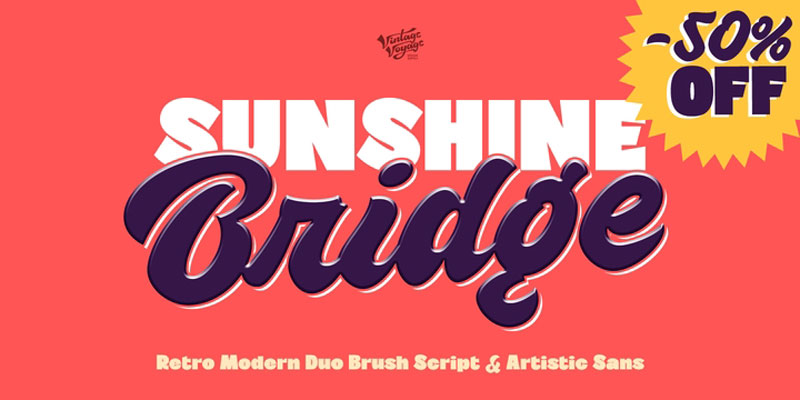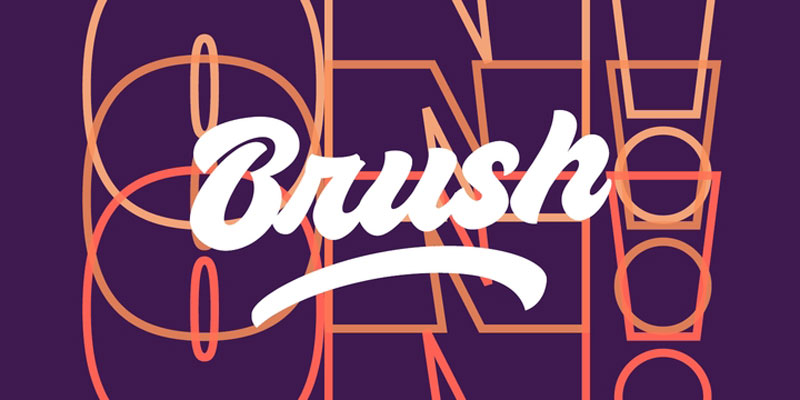
Sunshine Bridge is a retro-modern font family, featuring a retro brush script with an artistic modern bold sans serif. They complement each other perfectly. You can use the Sans as main and Script as additional, or vice versa. This family gives you a modern look with a vintage mood.
So, you can use it both as in vintage-look projects – Beer bar or Brewery logo, etc, or as Modern magazine headline or any modern print. It includes a lot of OpenType Features in Script with Swashes and Alternates to give you a little more hand-touch look.
Clean and Pressed versions
Well Kerned
Multilingual Support
OpenType Features
Modern / Vintage look